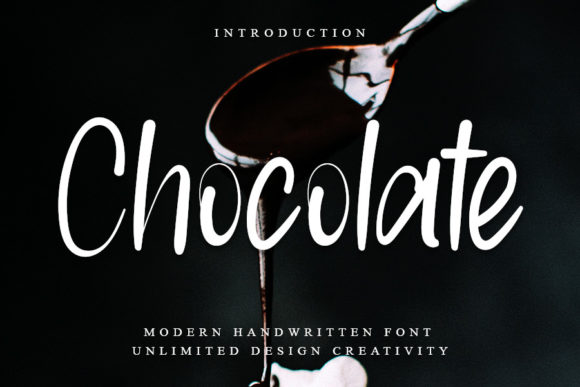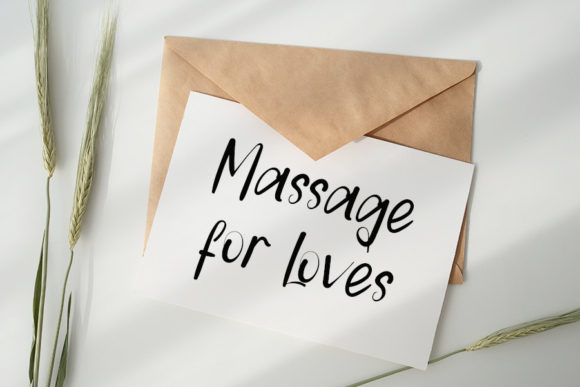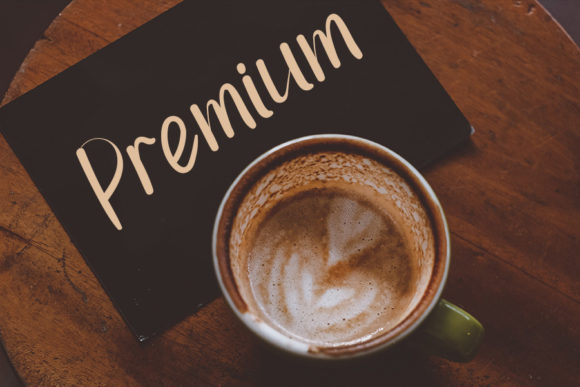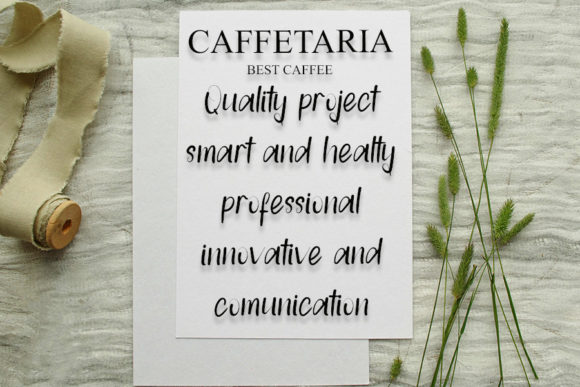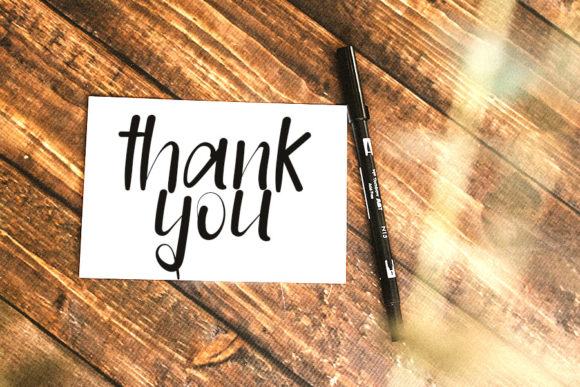
Chocolate Font
About Chocolate Font
Chocolate is a stylish and delicate handwritten font. Add this relaxed and adaptable font to each of your creative ideas, and notice how they come to life.